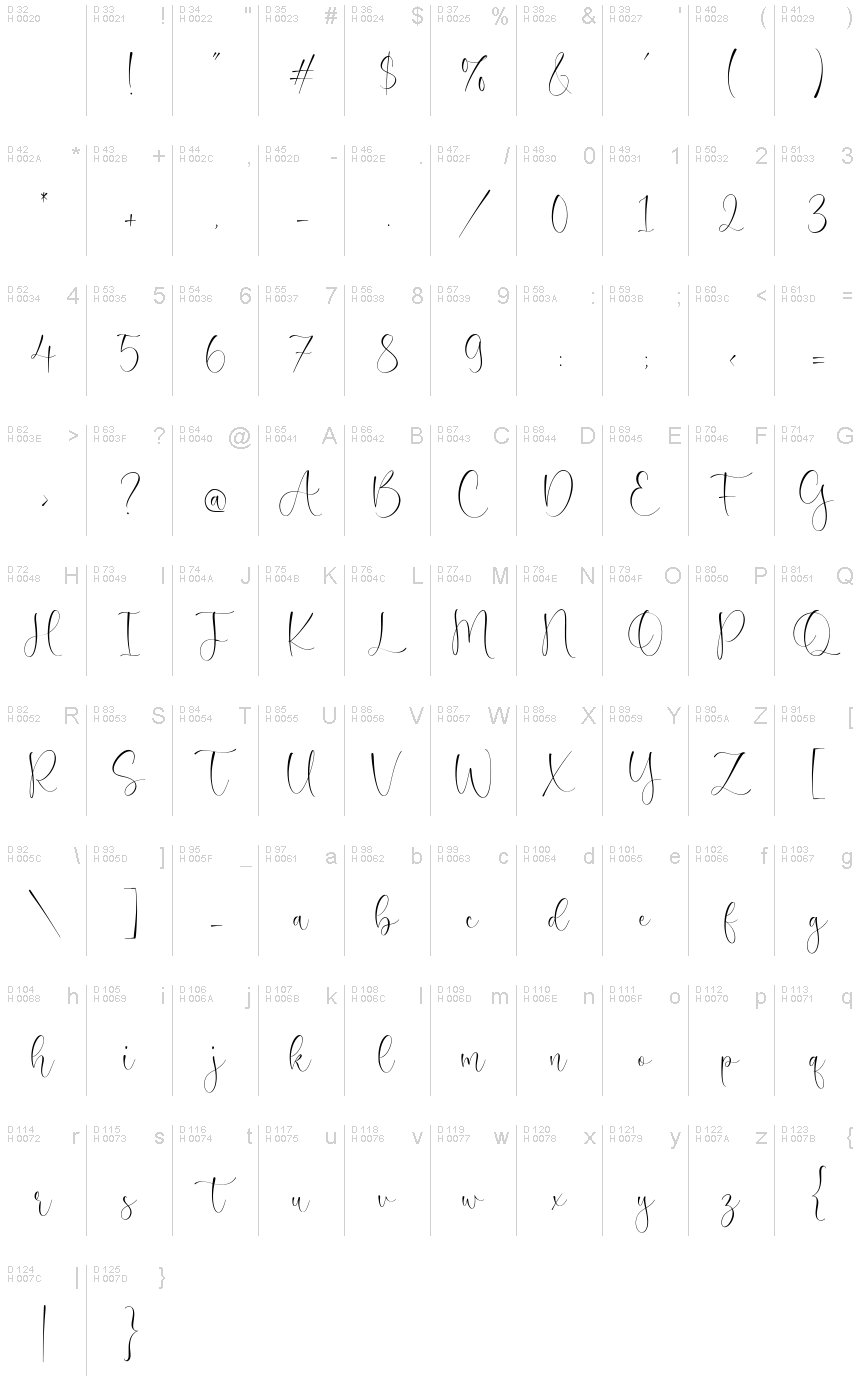
Amarylis Paradise
Amarylis Paradise font is designed by Timur Type. It's a handwritten signature style font with a light weight. With its cursive, elegant, flowing script, it includes looped elements and thin strokes. The high contrast and decorative touches evoke a formal mood with graceful curves.
The font's style is perfect for usage in product packaging, book covers, albums designs, professional cards printing or personal signature your logo design branding or website content creation and everything you like for yourself because it's very readable to fit any project.